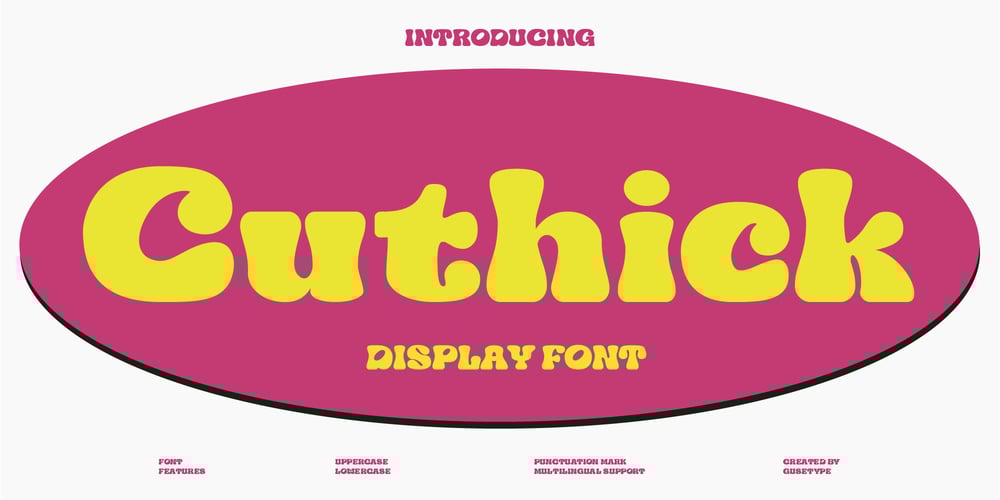
Cuthick Font Family was designed by Guntur Septyan and published by GuseType. Cuthick contains 1 styles and family package options. Cuthick is a display font that made based on thick lines, this font has a chubby and cute shape. You can use this font in playful, retro, and vintage style designs. This font can be use for a variety of projects or artwork such as sticker, headline, branding, product label, poster, logotype, magazine, and many more.Feature:- Kerning- Alternative Style and Ligature- Uppercase and Lowercase Letters- Numeral- Punctuation and Symbols- Multilingual Supports